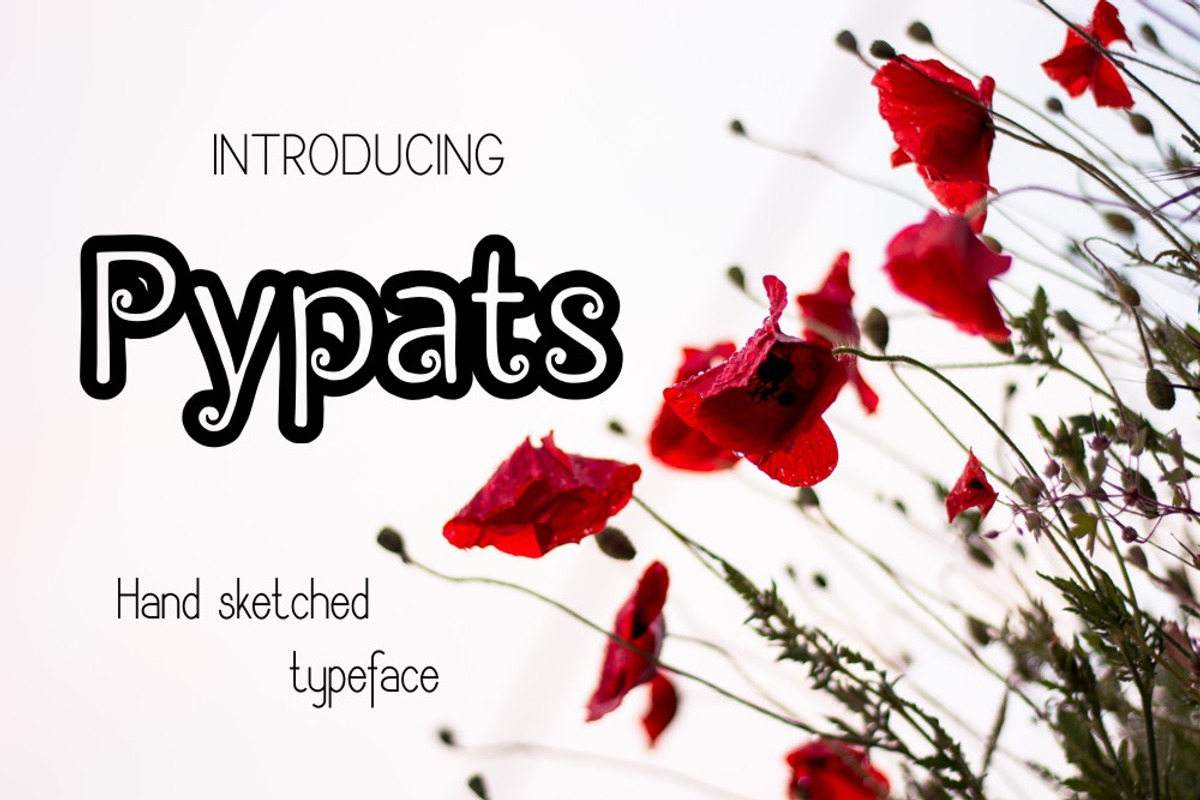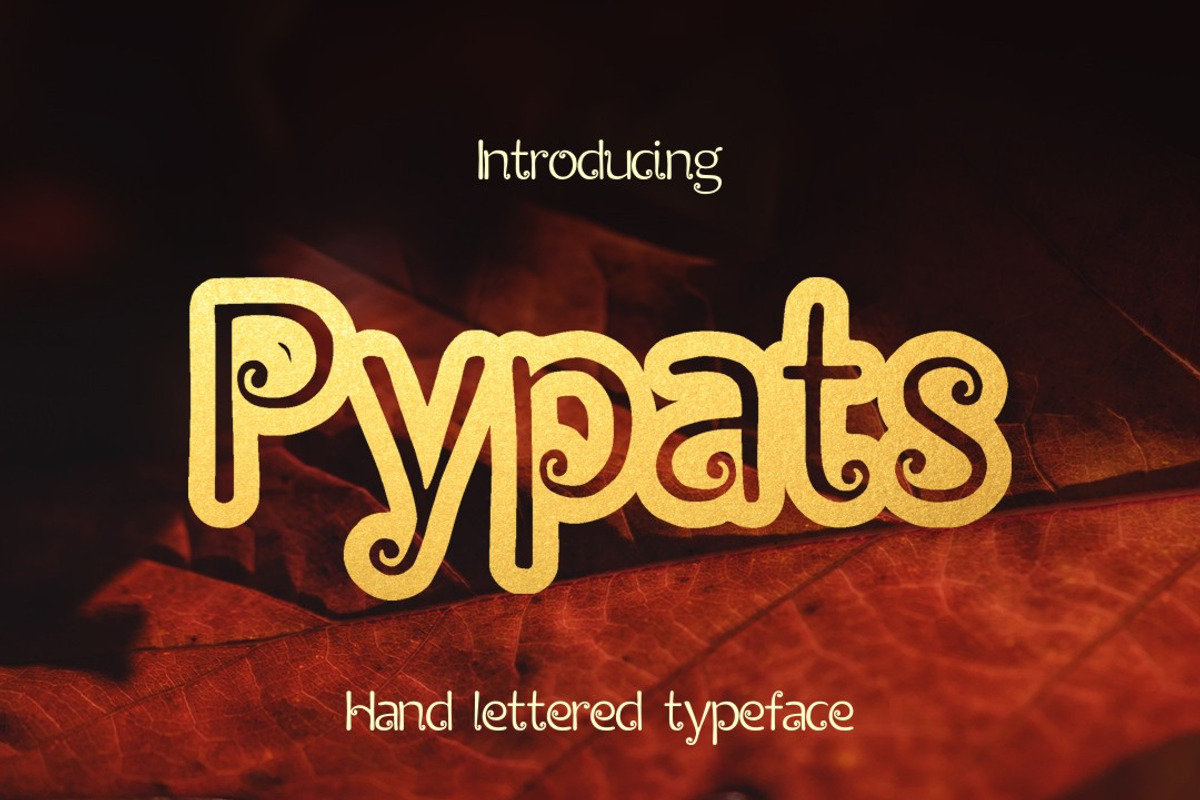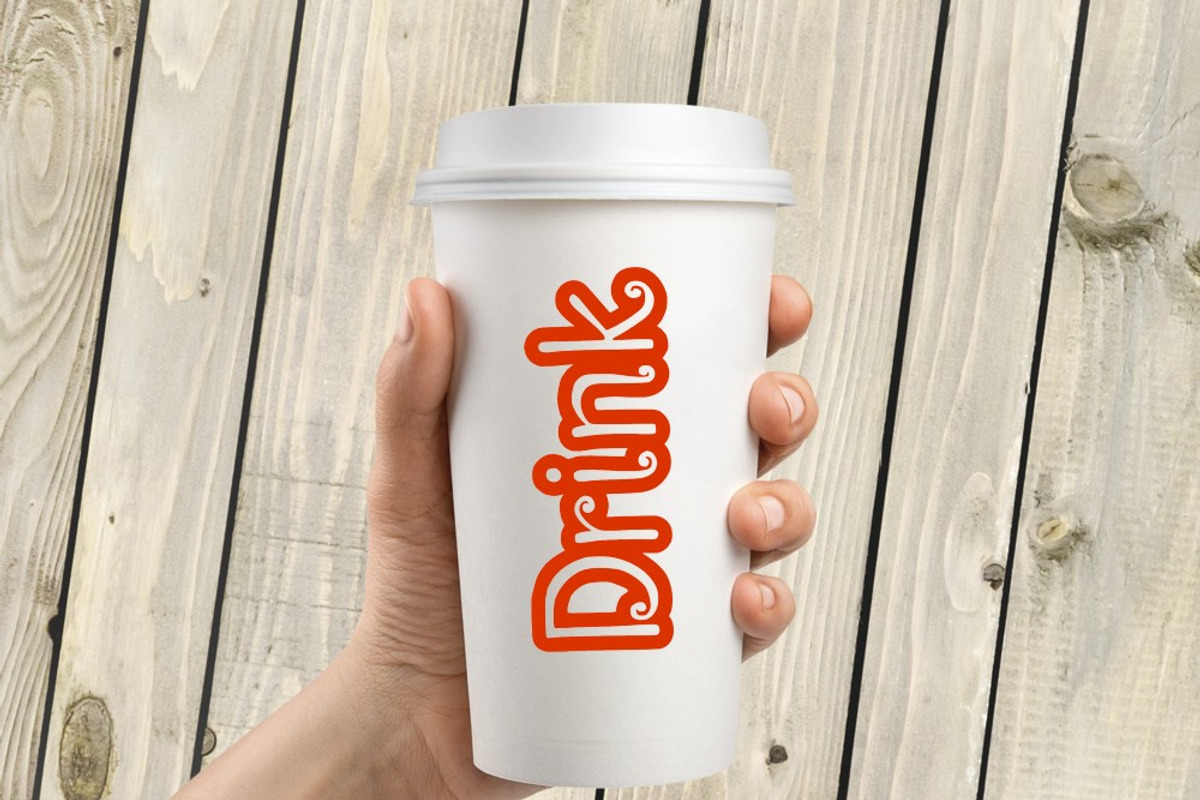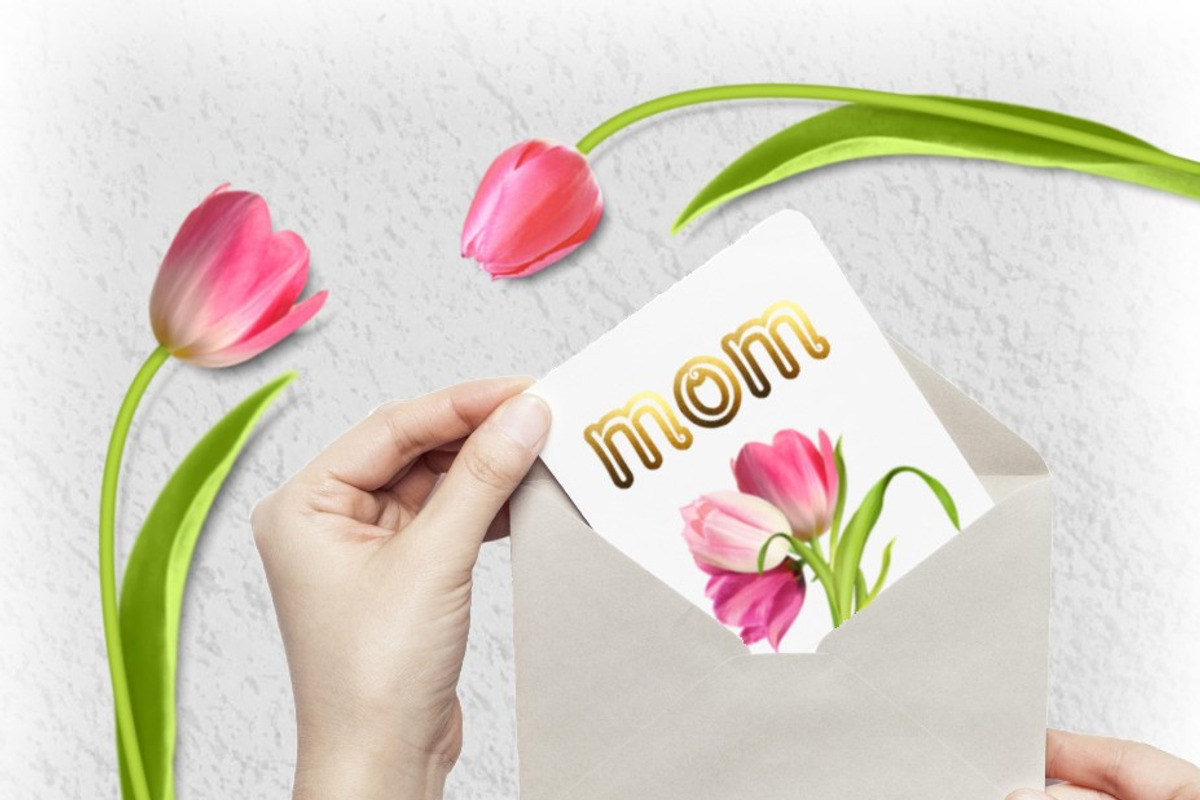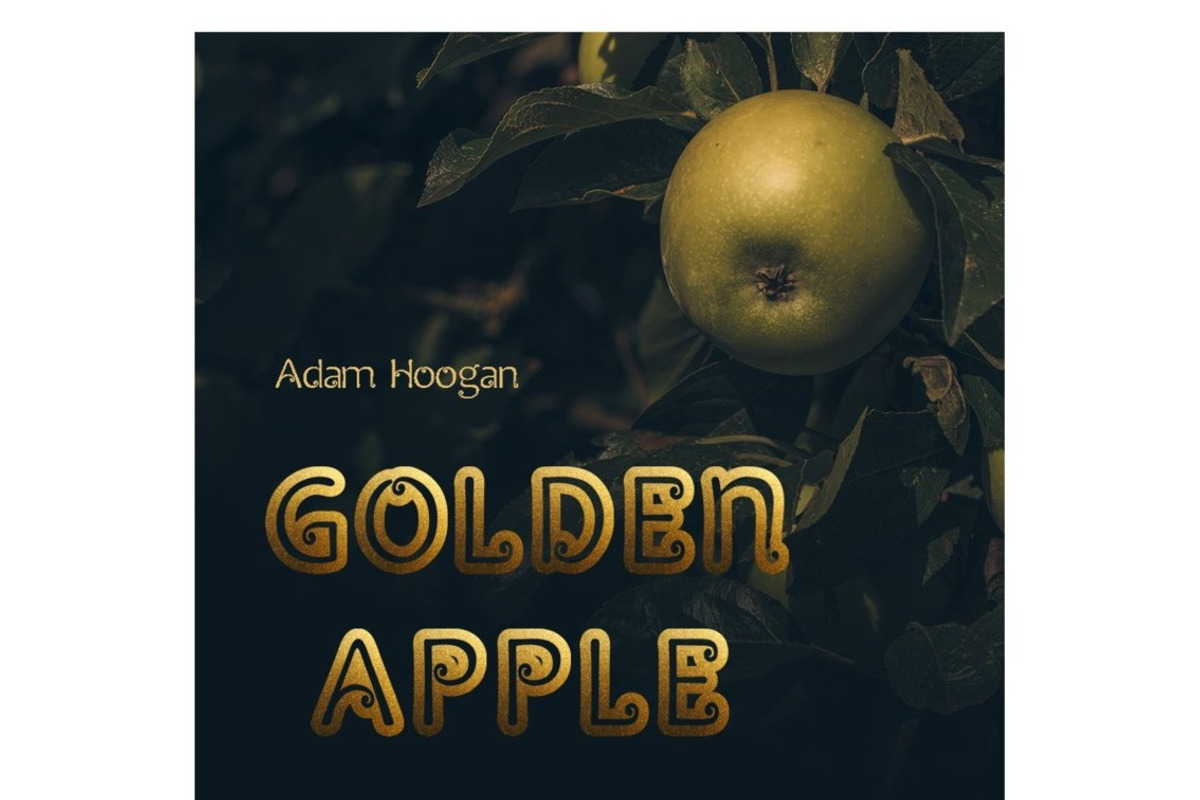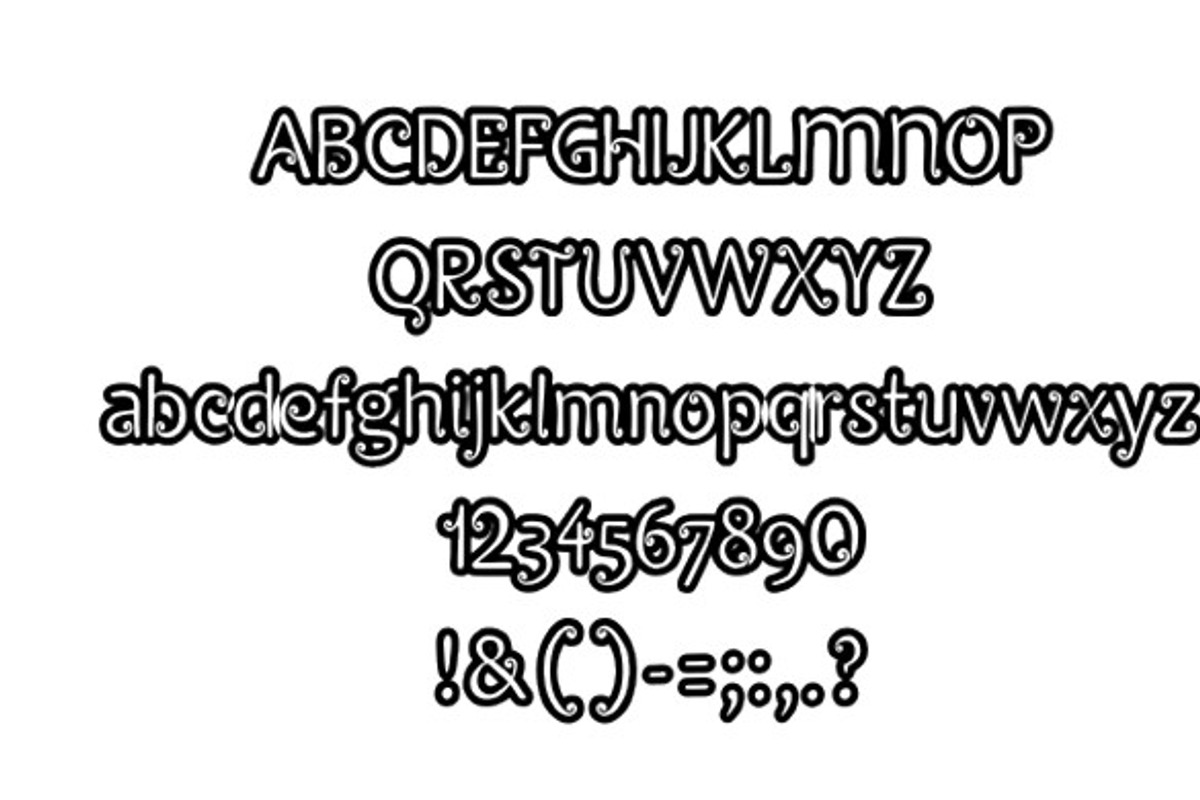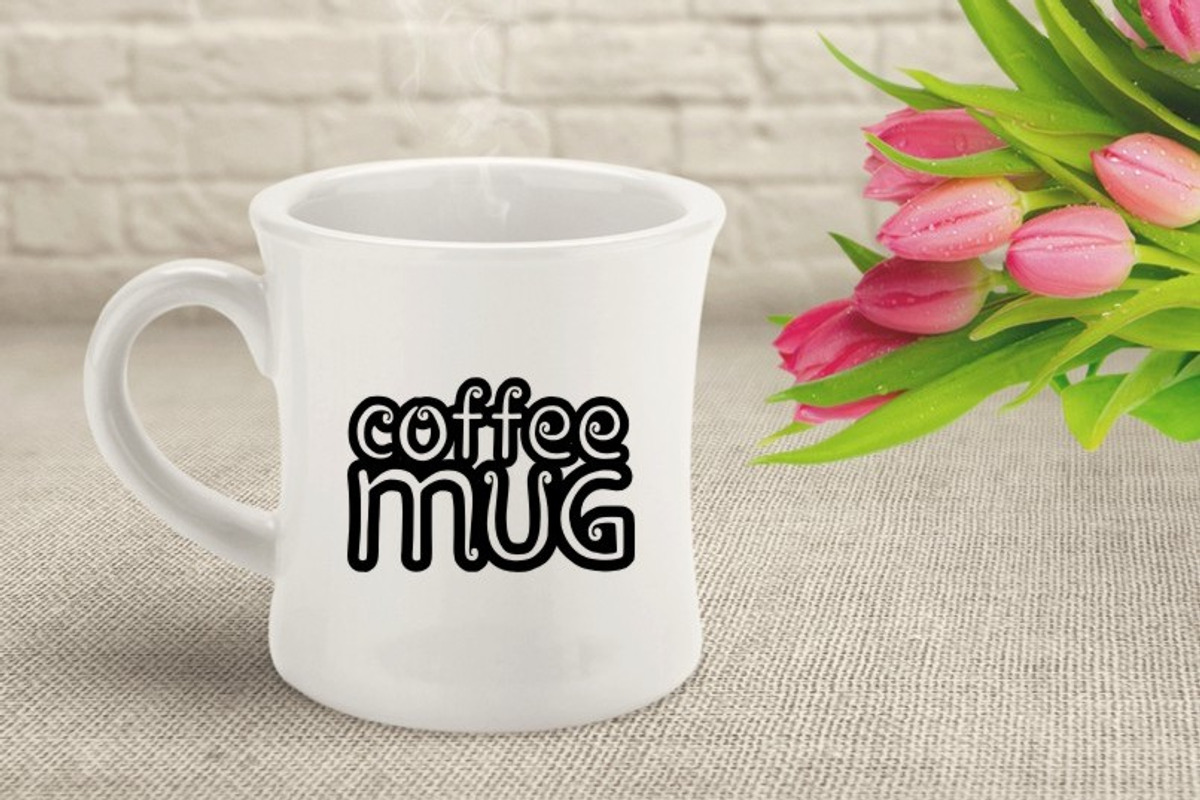
Pypats Font
Pypats Font by Digital Typeface Studio is a font selected for branding, posters, packaging, typography.
Why Pypats Font is worth a look
Pypats Font by Digital Typeface Studio fits naturally into Branding, posters, packaging, typography.